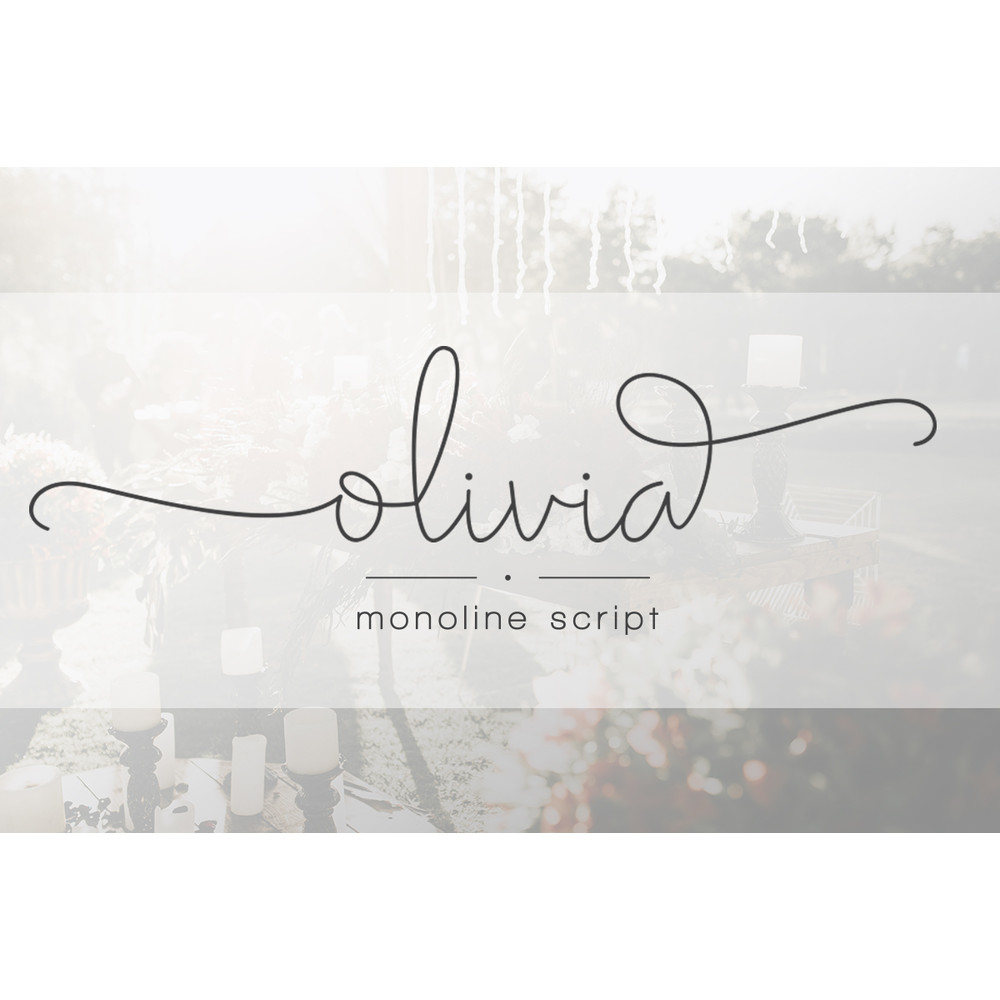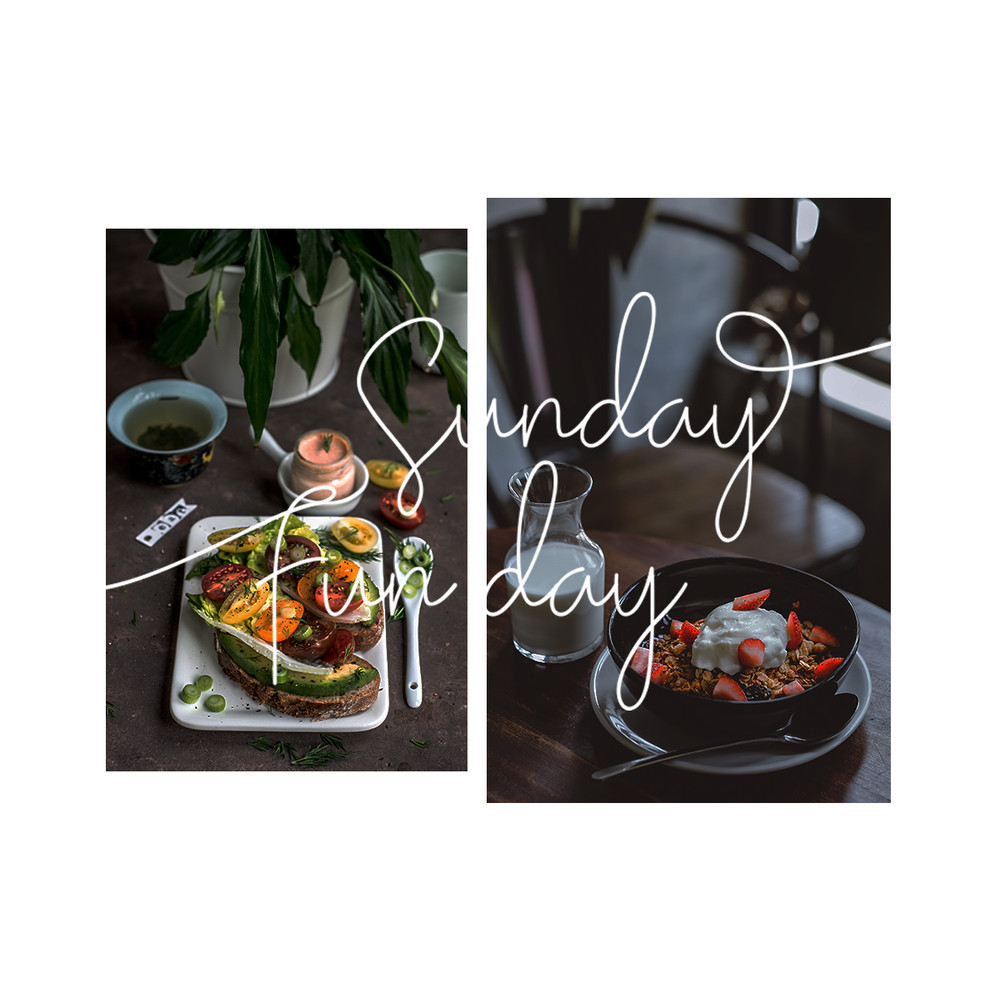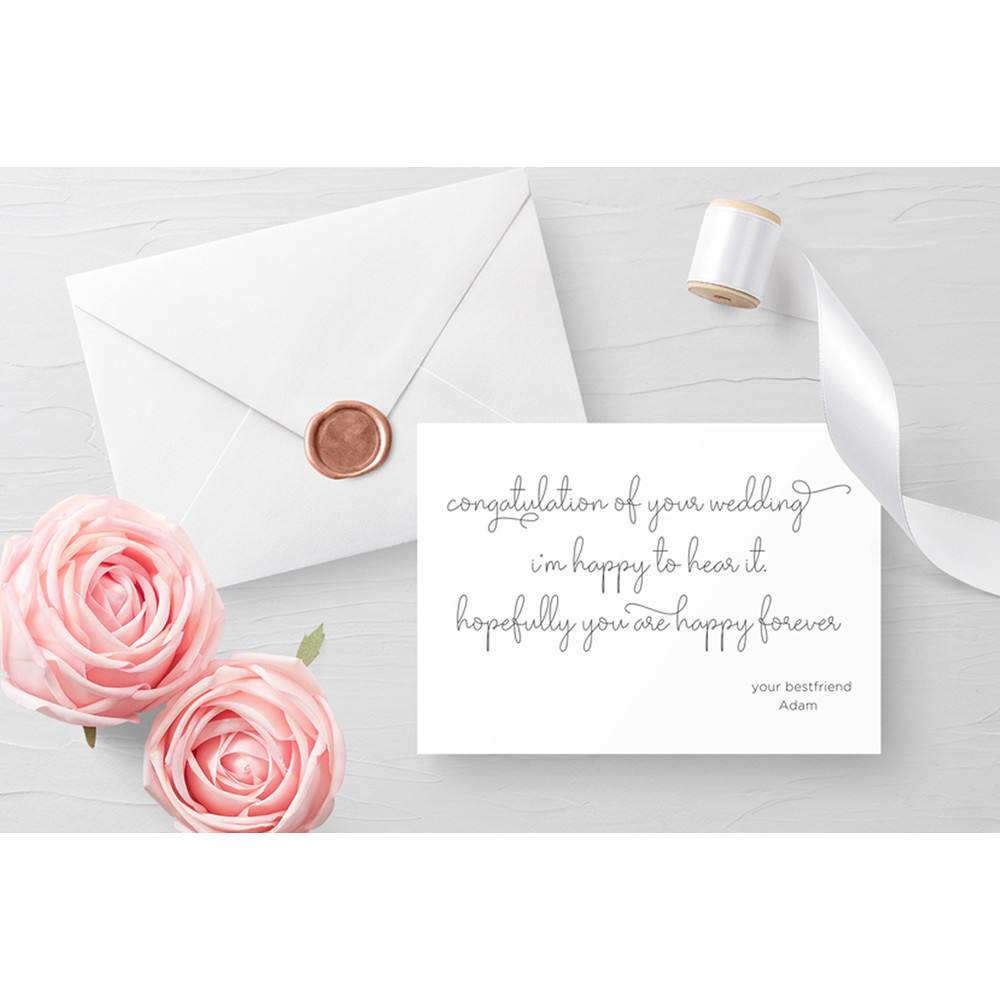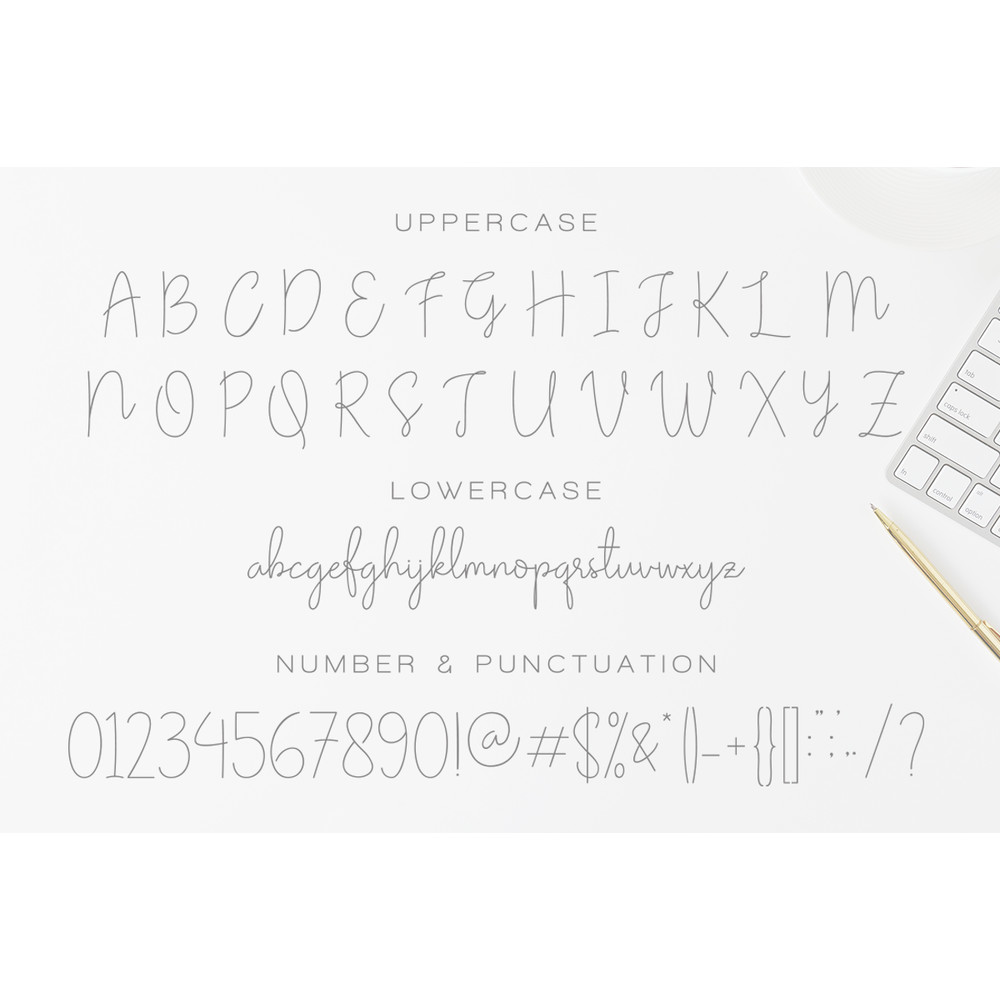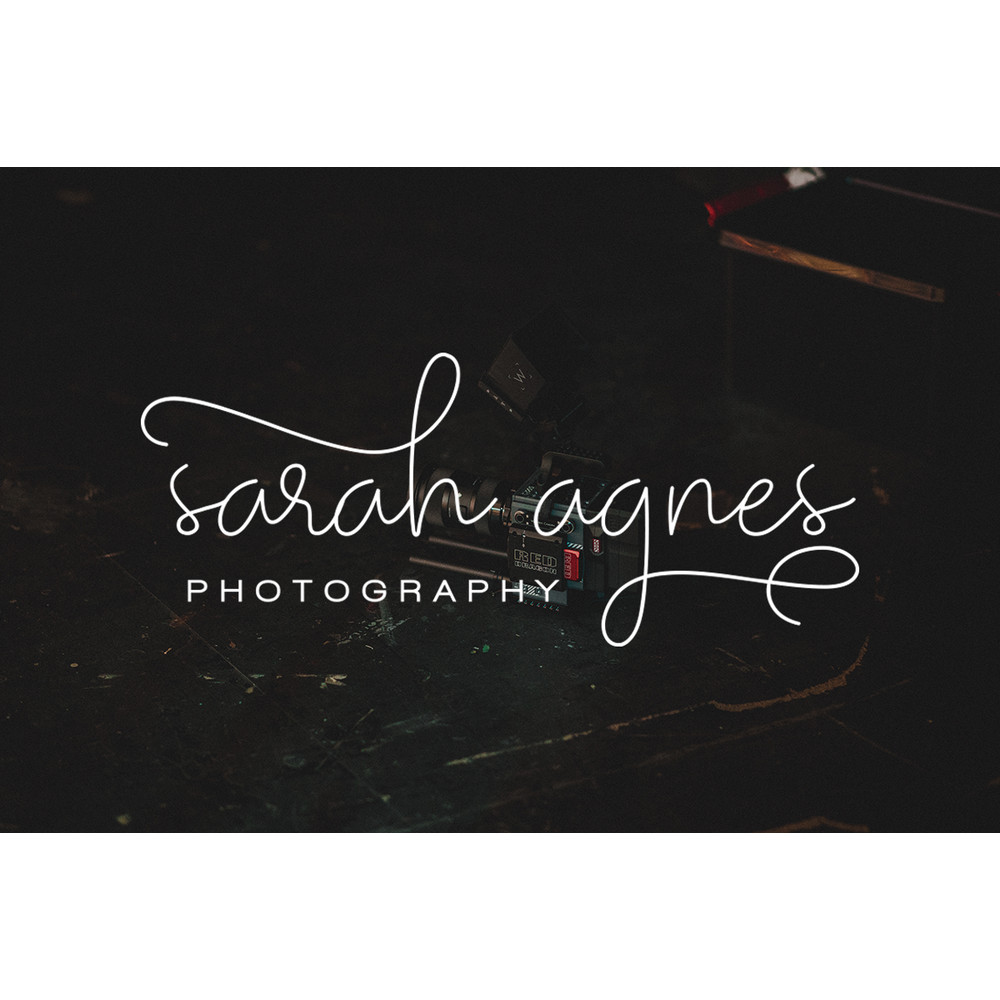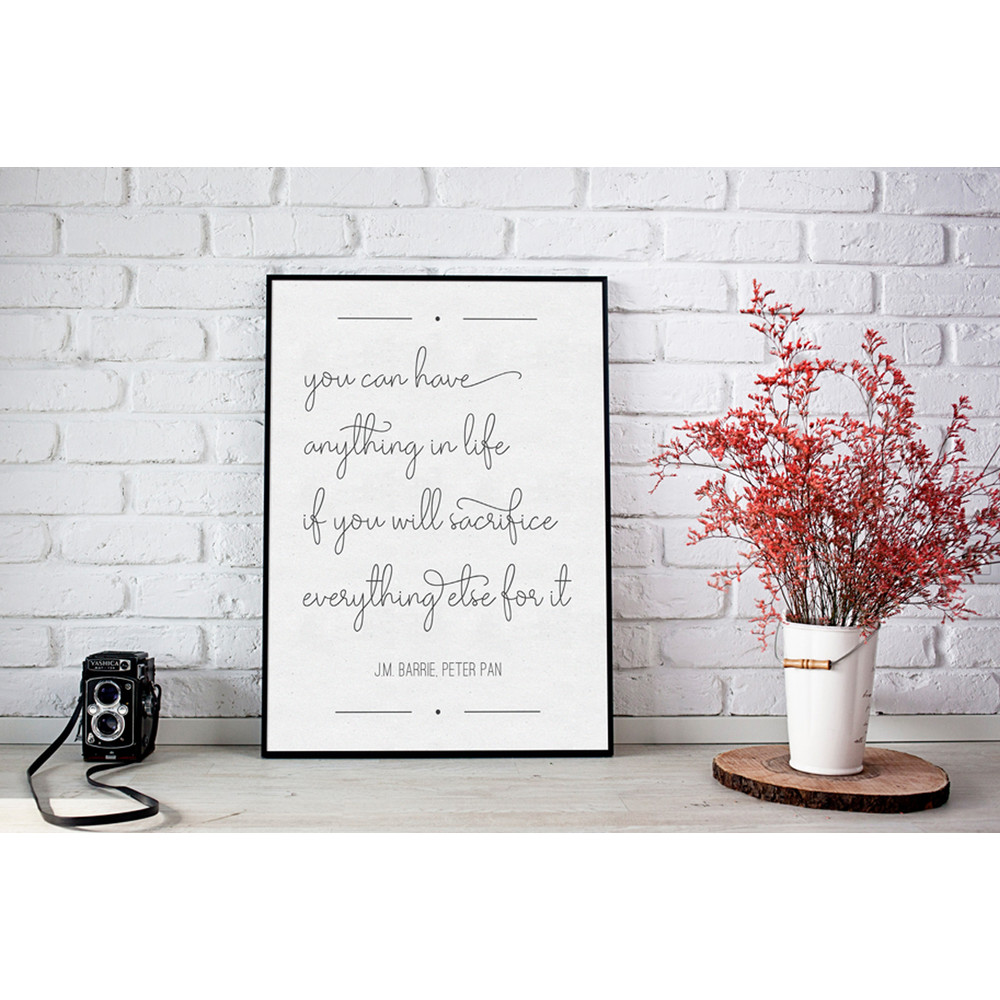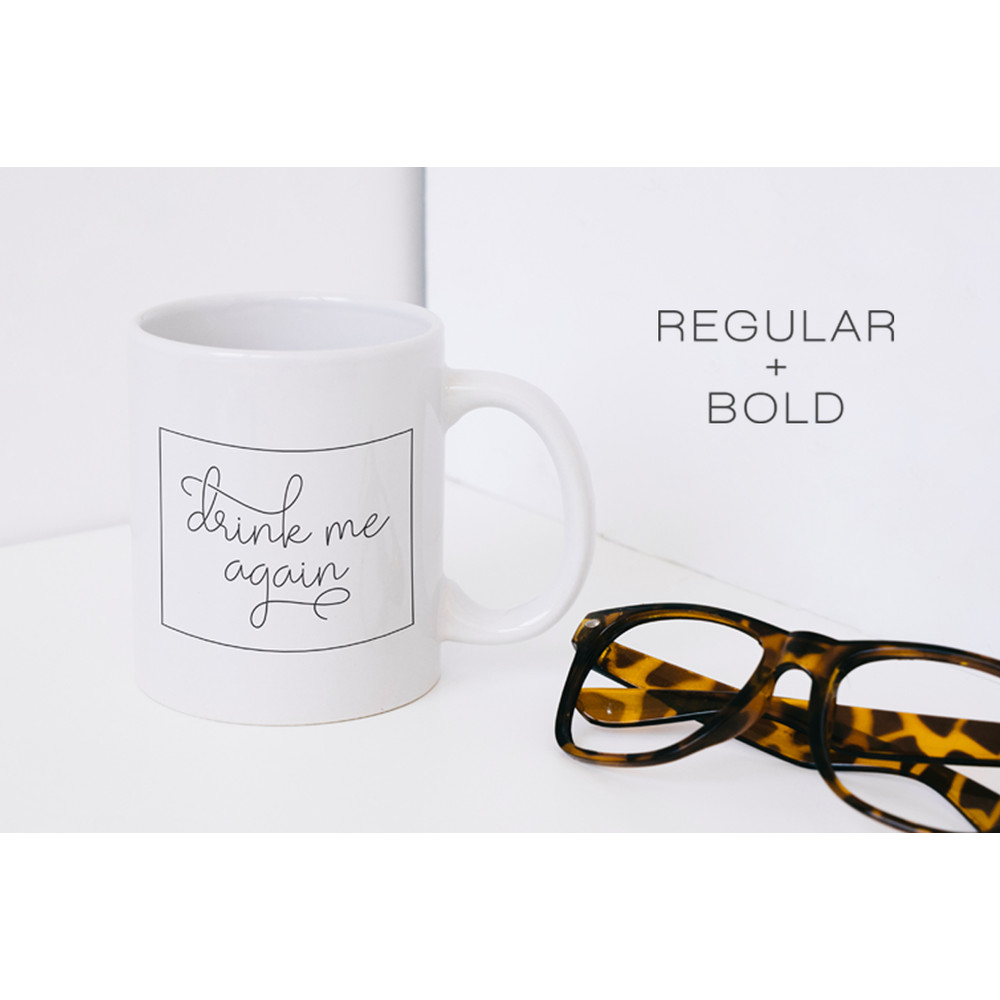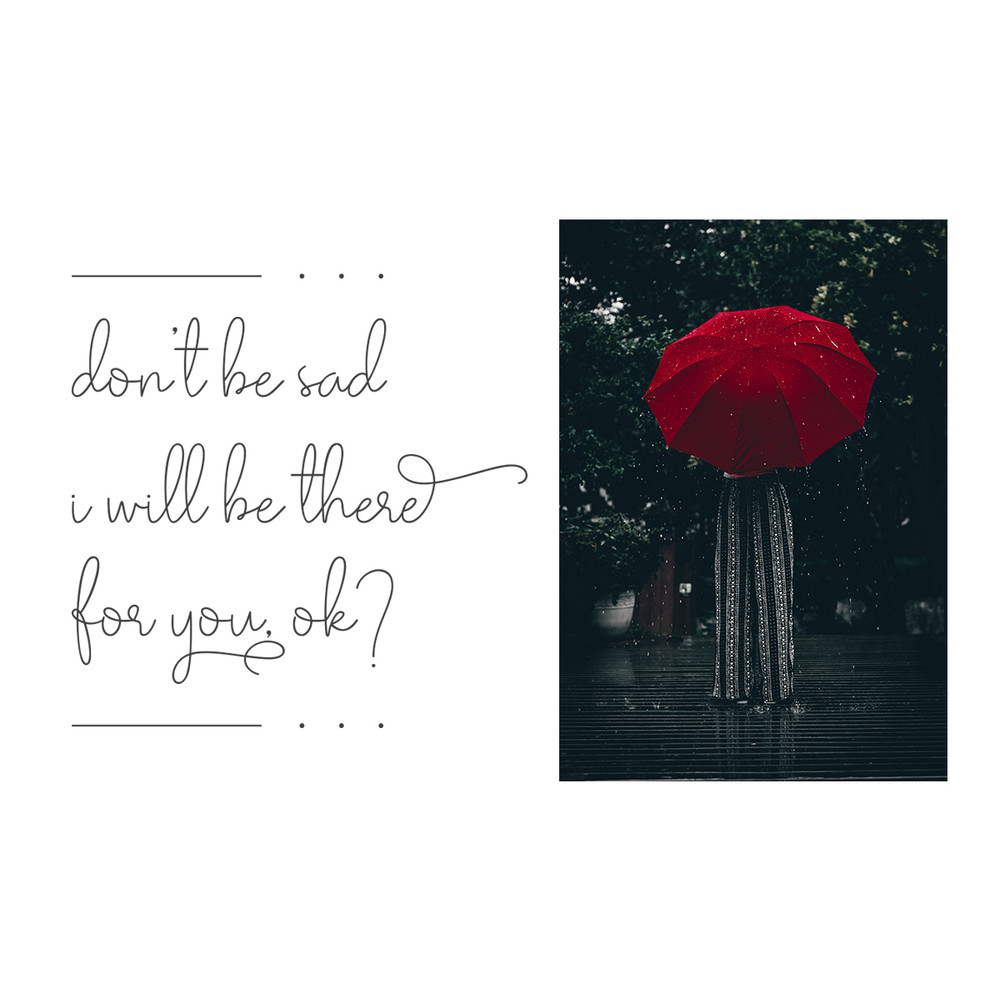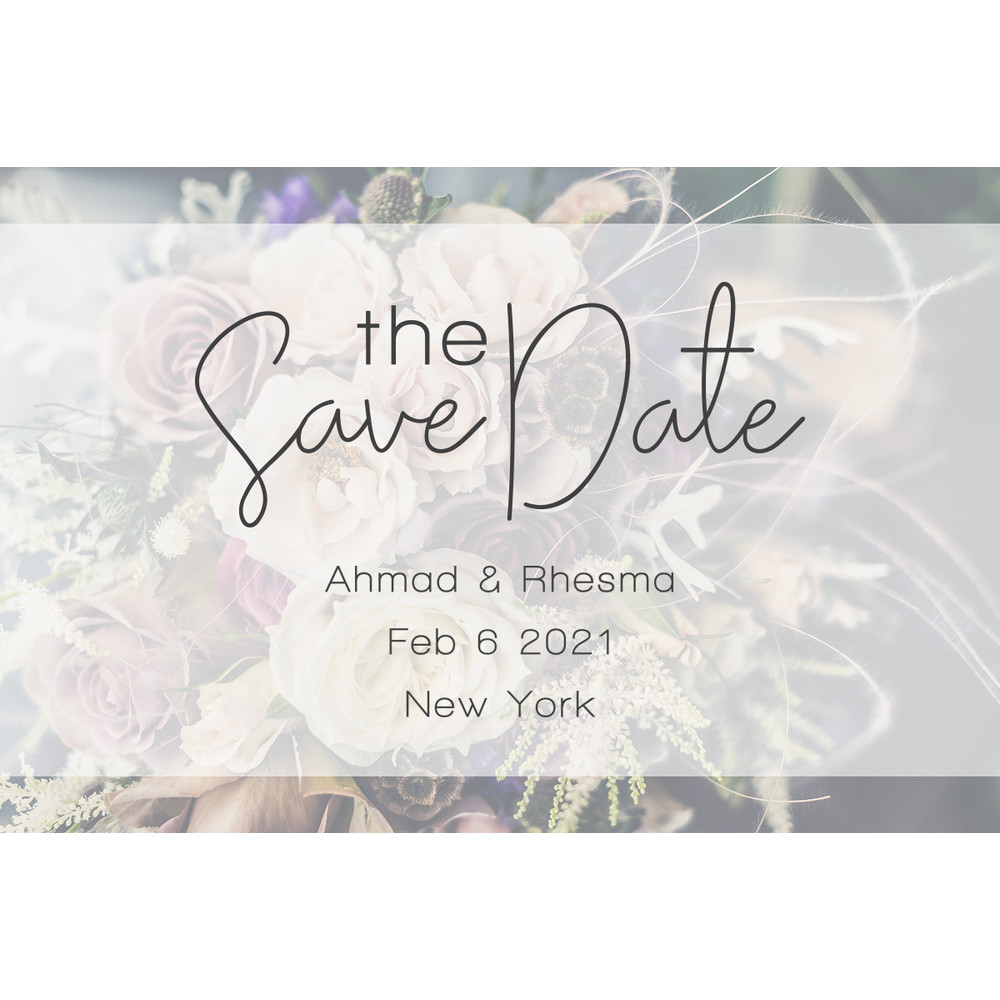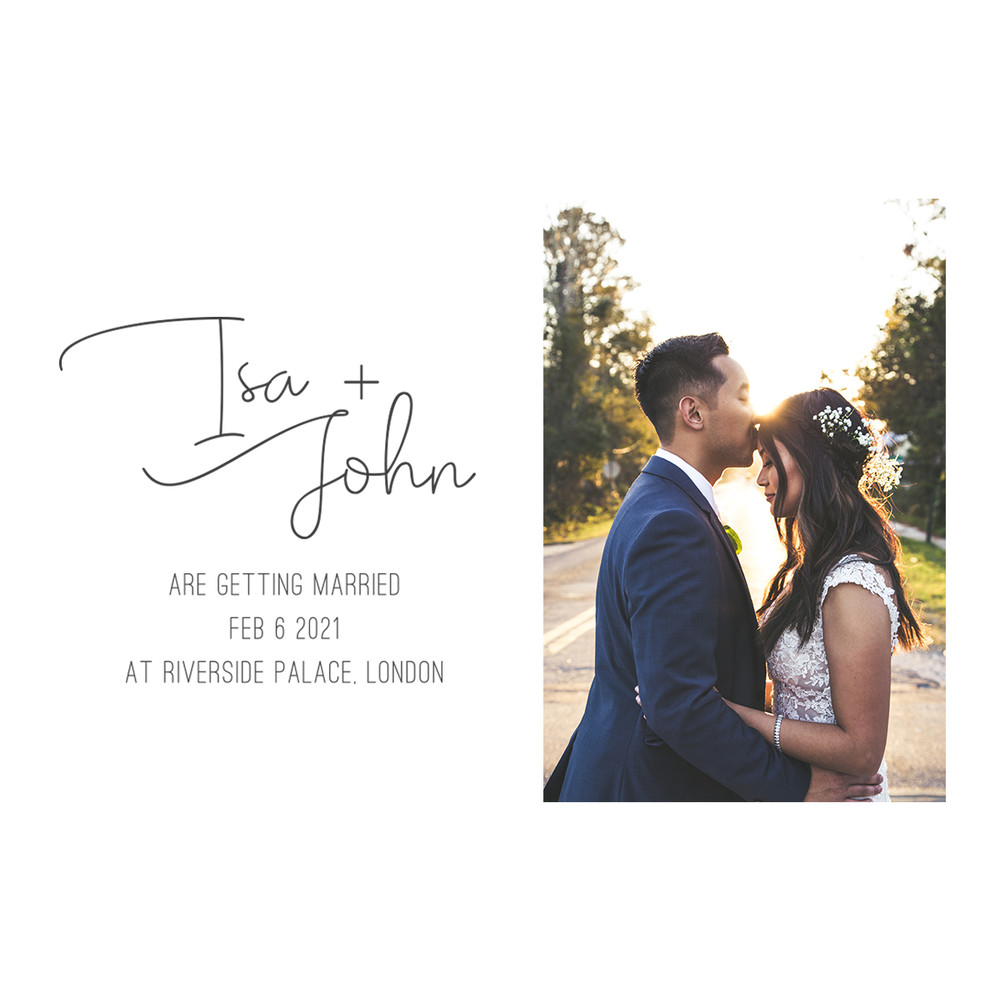
Olivia – Elegant Monoline Script Trending Fonts - Digital Font
Olivia is a modern calligraphic font with handwriting with mono-line model, sophisticated flow. It is have alternative tug and glyphs :). It’s perfect for branding, logo, wedding invitations, diaries, cups, mugs and greeting cards and any other.
Olivia includes a large set of beautiful capital letters and lowercase letters, regular and bold version, numbers, & punctuation, with beautiful flow in uppercase and lowercase letters, and you can change beautiful swashes do you like:)
The font has a smooth texture, so it will be perfect for all kinds of printing techniques and you can do embroidery, gold foil etc